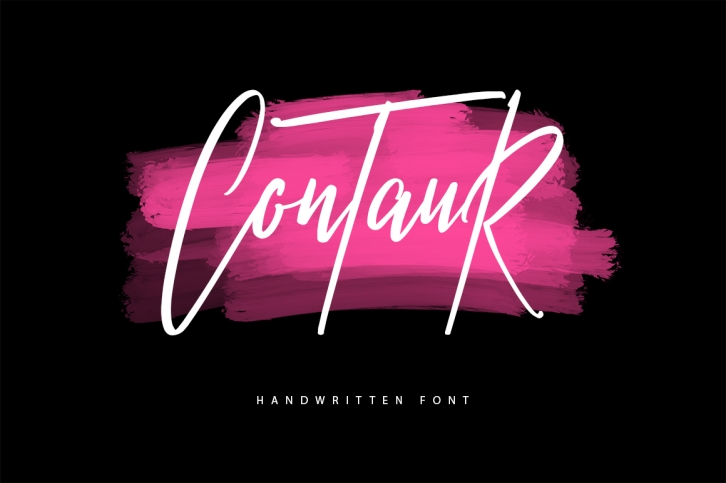
Contaur Typeface is a gorgeous font that was realeased on November 8, 2017. The font can be used in many style contexts and design environments. Perfect for invitations, magazines, websites, logos, and more! It was designed by Maulana Creative and the file size is 20.49 MB. Thanks for checking out this font!